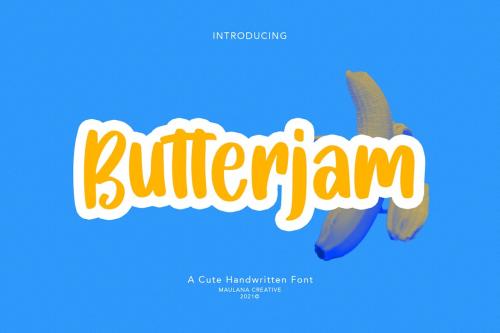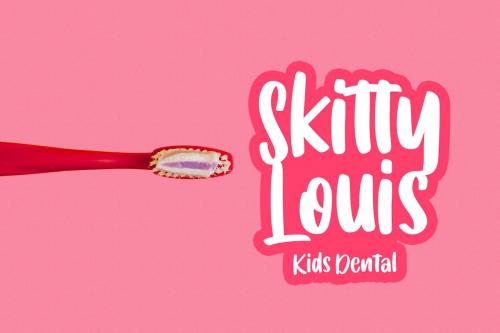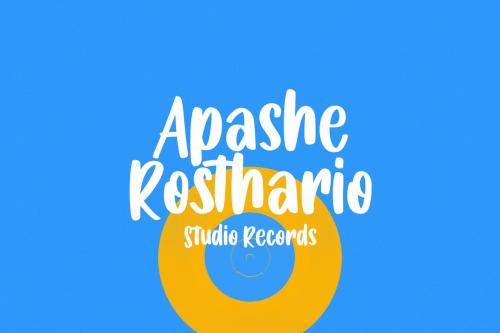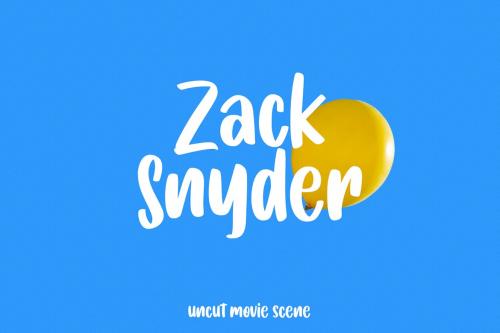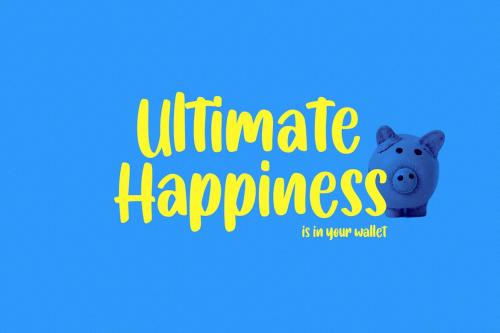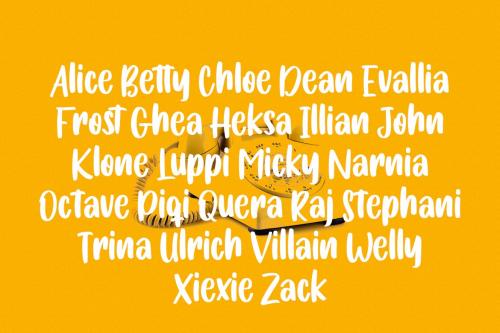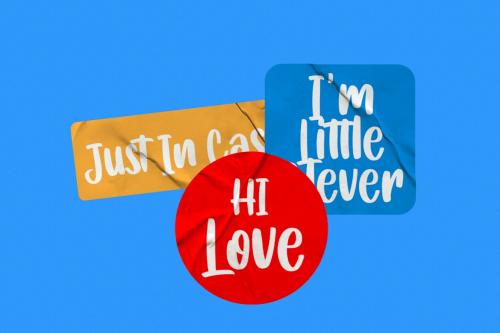
Butterjam 漂亮手写体字体
Butterjam Cute Handwritten Font
Butterjam is handwritten font, with bold stroke, uprights and fun character. It has Opentype features ligatures of character, To give you an extra creative work. Butterjam handwritten font support multilingual more than 100+ language. This font is good for logo design, Social media, Movie Titles, Books Titles, a short text even a long text letter and good for your secondary text font with sans or serif. Make a stunning work with Butterjam font.